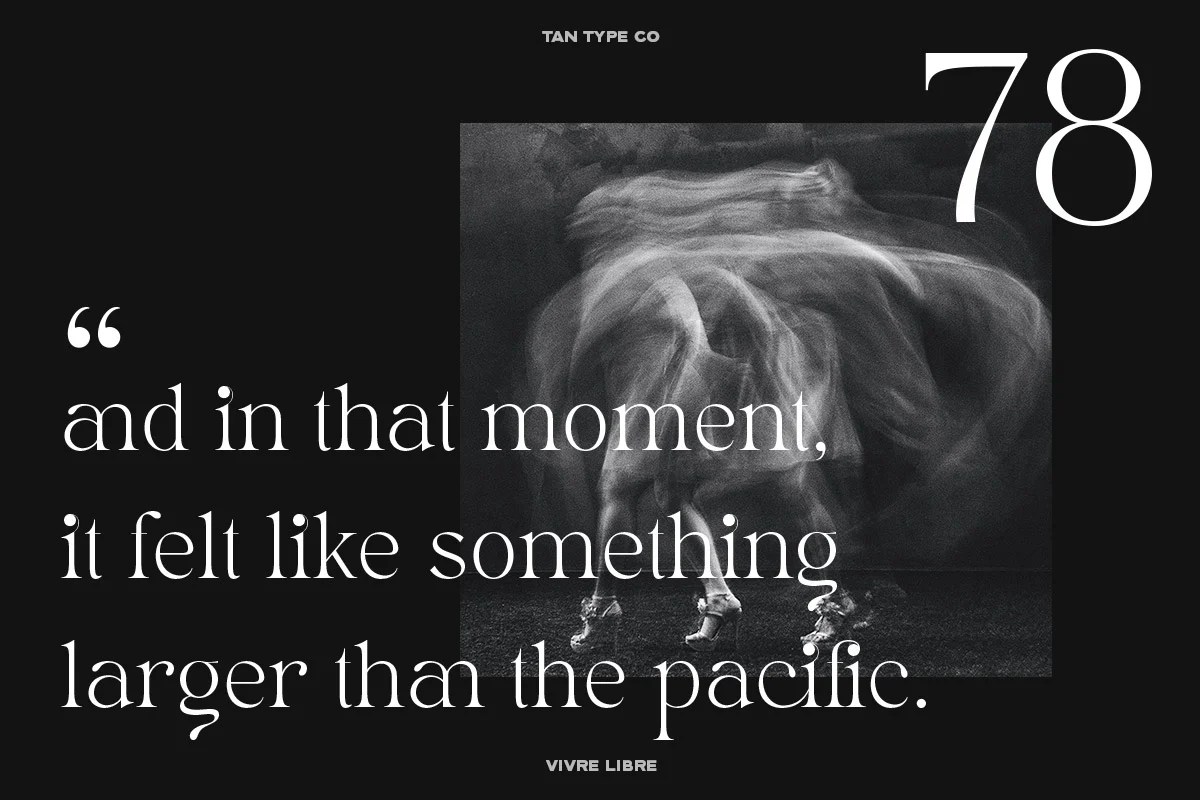
Tan Vivre Libre Font. Web tan vivre libre is a classic elegant serif that comes with a twist. It has ligatures that will make everything more.
Web tan vivre libre font demo is for personal use only!. It is perfect for invitations, cards, and other. Web tan vivre libre is a classic elegant serif that comes with a twist. Web tan vivre libre is a fun and playful font with a touch of whimsy. It has ligatures that will make everything more. Web this elegant serif font, created by n j, is perfect for those who want to add a touch of sophistication to their designs.
Web this elegant serif font, created by n j, is perfect for those who want to add a touch of sophistication to their designs. It is perfect for invitations, cards, and other. Web this elegant serif font, created by n j, is perfect for those who want to add a touch of sophistication to their designs. Web tan vivre libre is a fun and playful font with a touch of whimsy. Web tan vivre libre font demo is for personal use only!. It has ligatures that will make everything more. Web tan vivre libre is a classic elegant serif that comes with a twist.